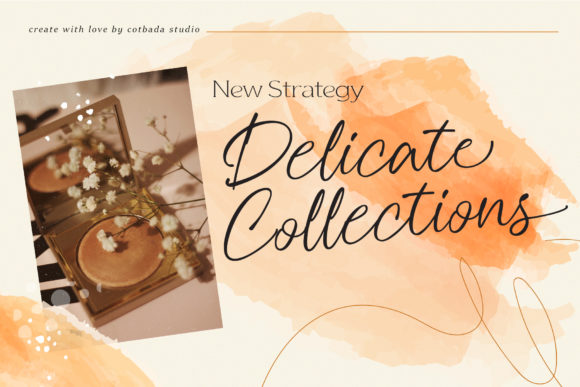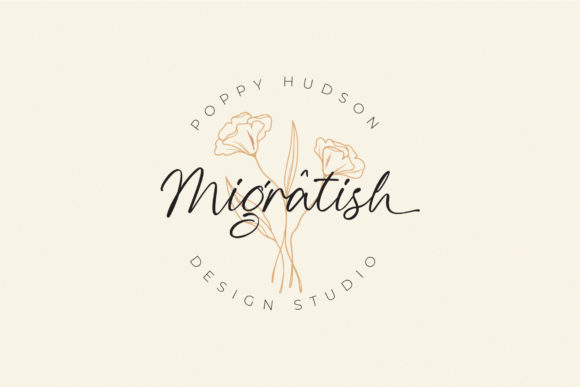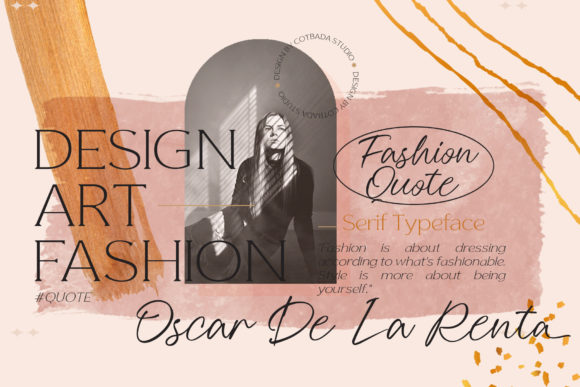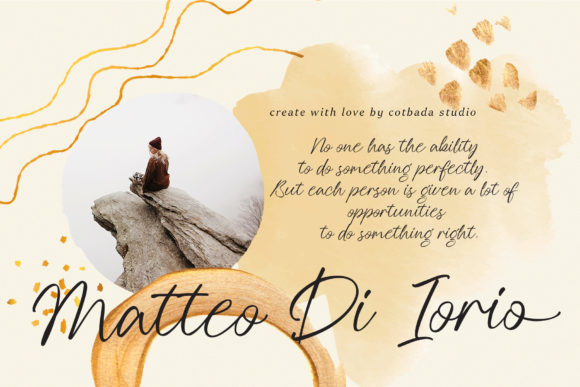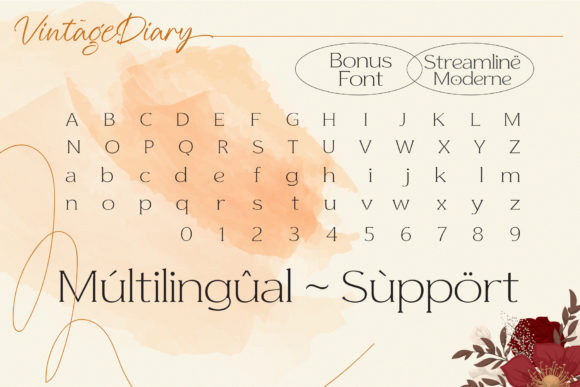
About Vintage Diary Font
Vintage Diary is a genuine and cool handwritten font. It looks lovely on wedding invitations, thank you cards, quotes, greeting cards, logos, business cards and every other design which needs a relaxed touch.